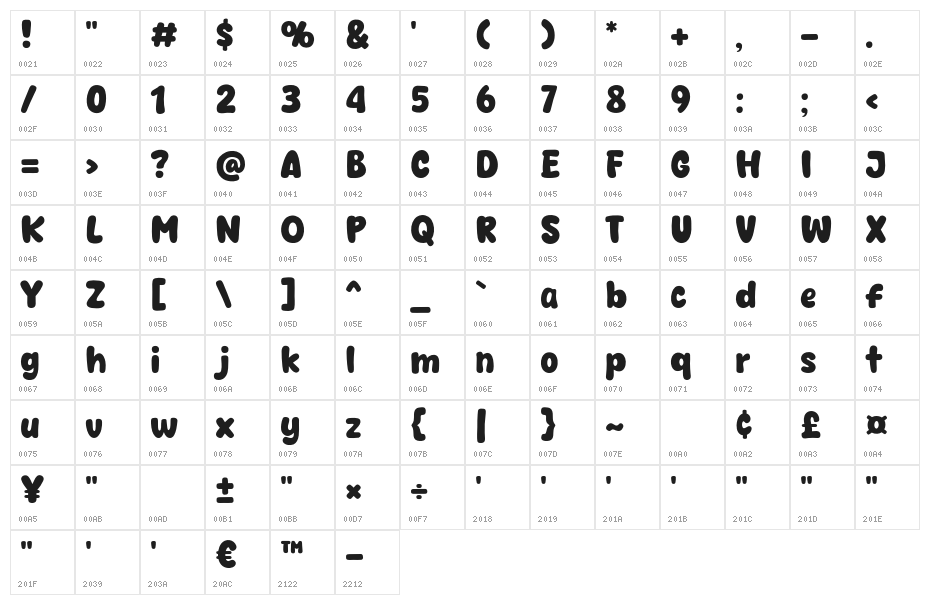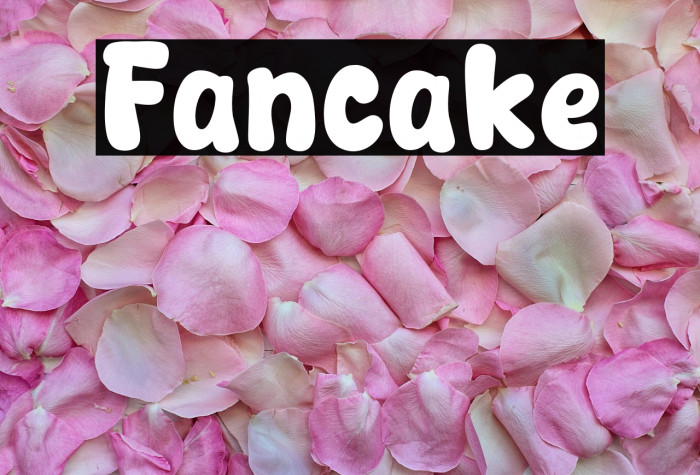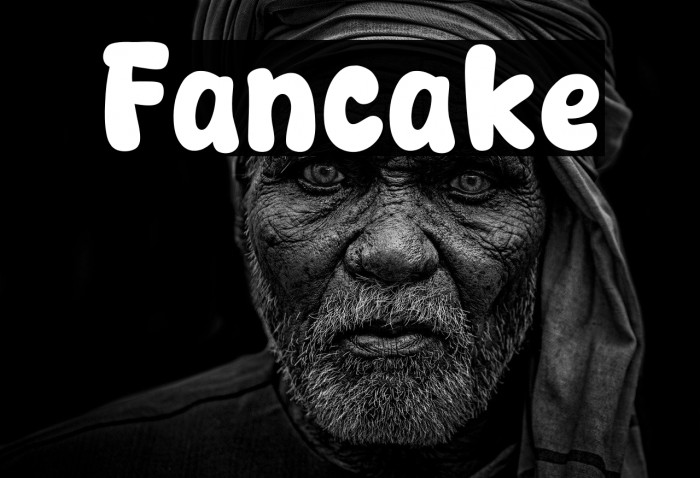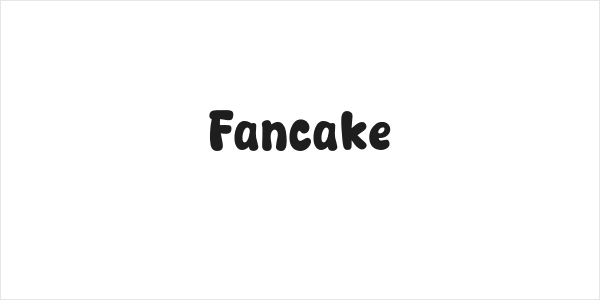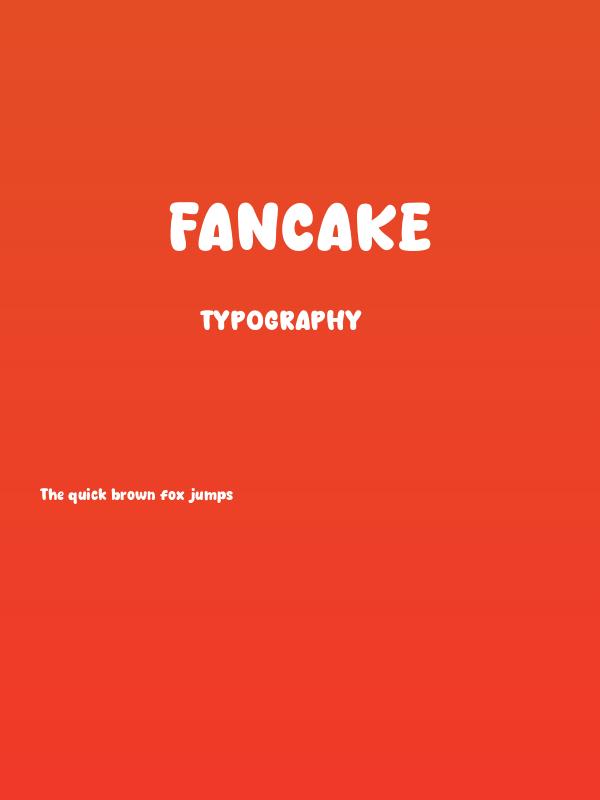
Fancake Font
This playful and bold font features rounded, bubbly characters that exude a sense of fun and whimsy. The letters are thick and uniform, with a consistent stroke width that gives them a cohesive appearance. The rounded edges and soft curves create a friendly and approachable look, making it ideal for designs that aim to convey warmth and cheerfulness. The font includes a full set of uppercase and lowercase letters, numbers, and a variety of special characters, ensuring versatility in its application. Its unique style makes it stand out, perfect for projects that require a touch of personality and charm.
| Overall Style | Playful |
| Use Case | Logos, Headlines, Posters |
| Proposed Projects | Ideal for children's books, playful branding, party invitations, and fun social media graphics. |